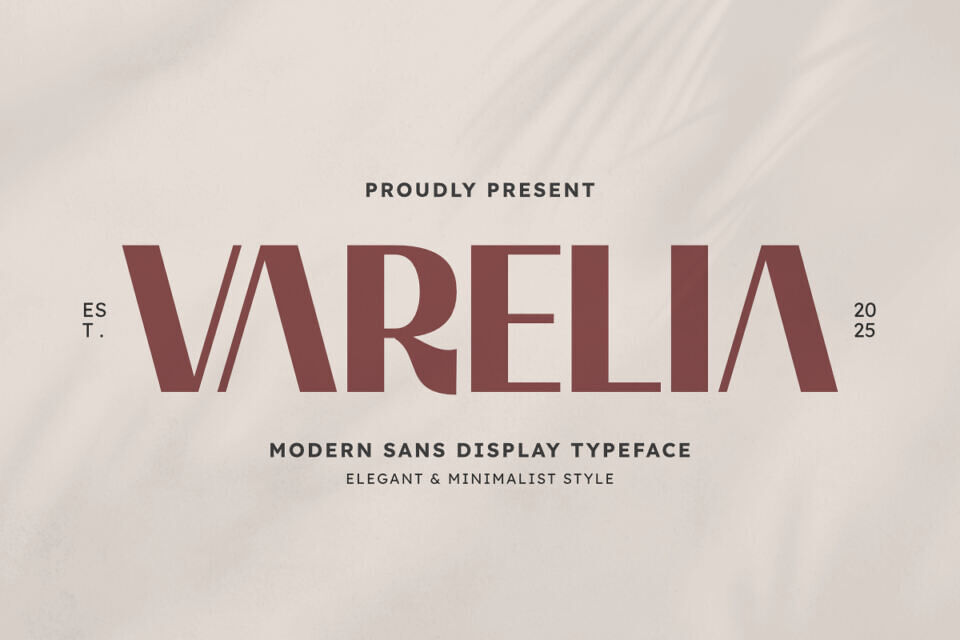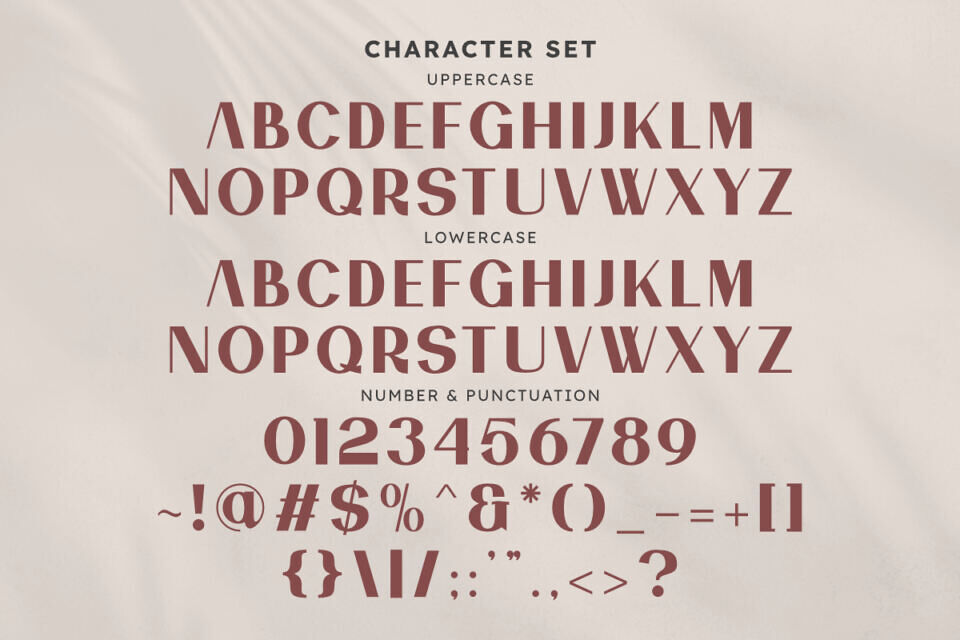
Varelia Font
Varelia is an elegant modern sans display typeface designed with a sophisticated and minimalist style. This font features sleek lines and unique letterforms that command attention while maintaining a refined aesthetic.
Its clean and impactful presence makes it perfect for high-end branding, luxurious logos, striking headlines, fashion editorials, and any project that calls for a touch of contemporary elegance and clarity. Elevate your designs with the distinctive and chic character of Varelia.